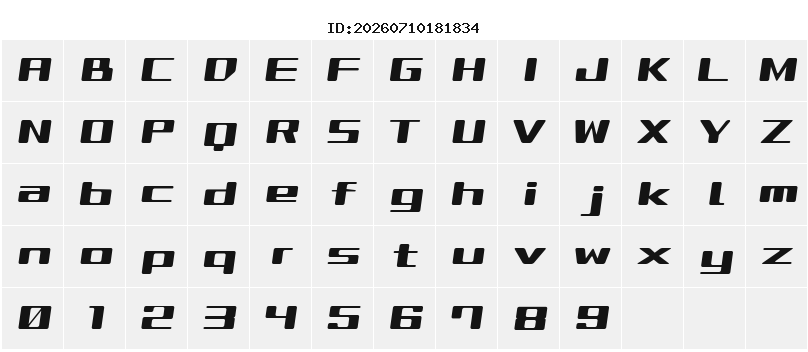
GauFontOverDrive Preview
• Font Name: GauFontOverDrive
• Full Font Name: GauFontOverDrive
• PostScript Name: GauFontOverDrive
About GauFontOverDrive.ttf
GauFontOverDrive.ttf is a modern, elegant sans-serif font designed for ultimate readability and visual harmony. Perfect for branding, headlines, web design, and print materials.